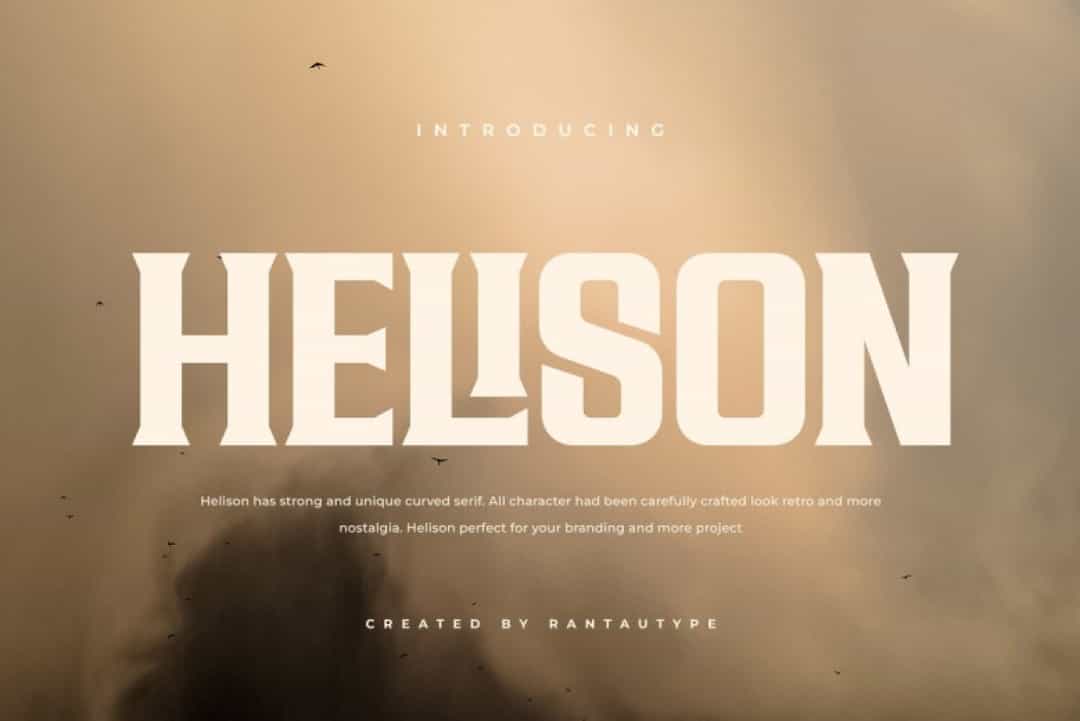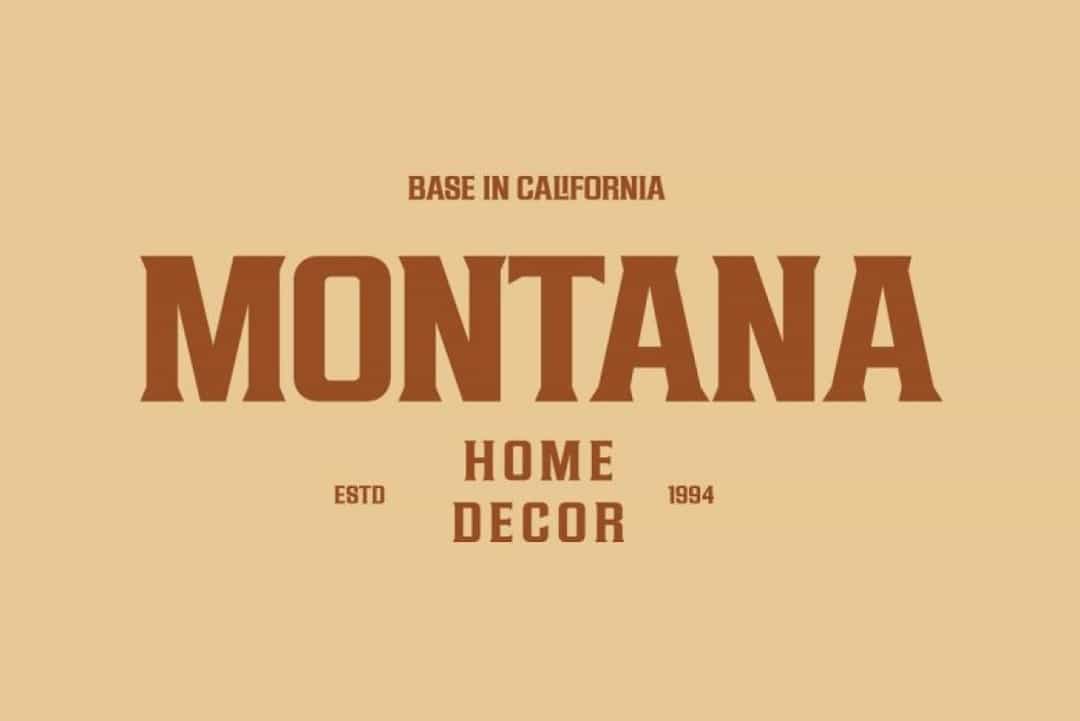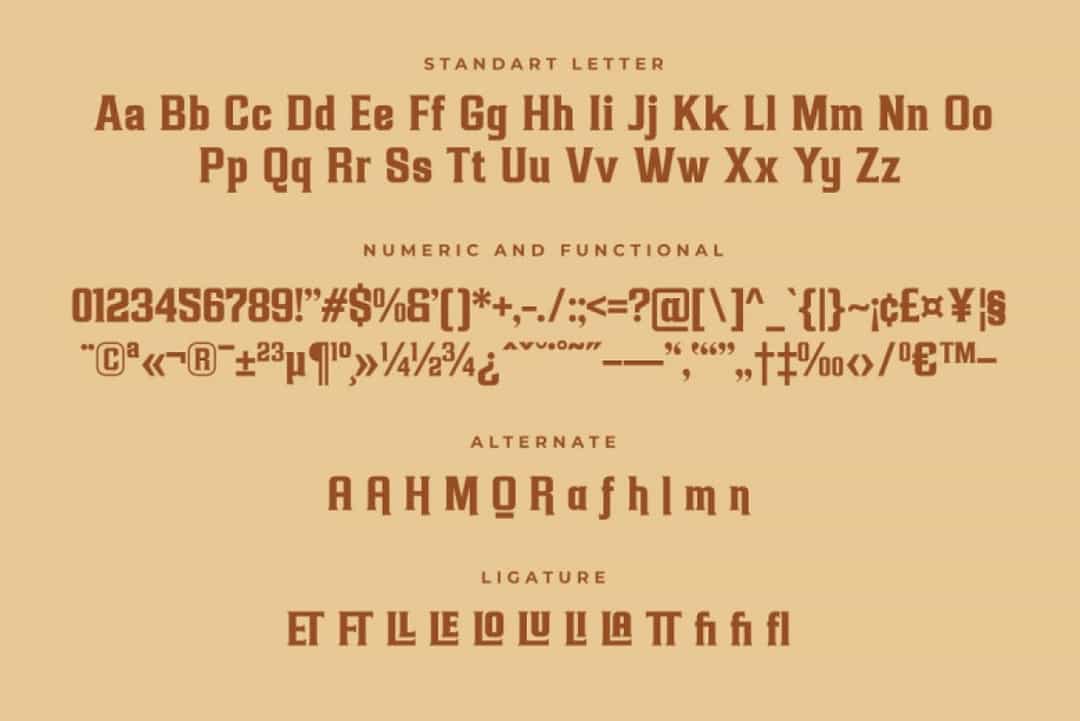
Helison is an elegant, powerful presentation serif typeface featuring an iconic curving shape, carefully designed to look retro and bring back nostalgic feelings. This font style offers elegance, contemporary, luxury appealing high-end appeal while being user-friendly.